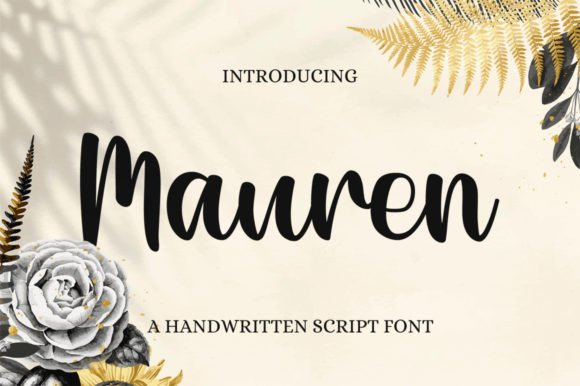
Introducing Mauren Font, the beautiful and enticing script font that will add a touch of elegance and charm to your creative projects. With its captivating curves and graceful strokes, Mauren Font is the perfect choice for designing wedding invitations, logos, branding, and heartfelt quotes that resonate with your audience.
Mauren Font is a product of Nirmala Creative, a renowned font designer known for creating exquisite and captivating fonts that bring life to your designs. With Mauren Font, you'll have access to a font that oozes sophistication and timeless beauty, making it the ideal choice for creating designs that leave a lasting impression.
**Why Choose Mauren Font?**
- Exquisite Script Style: Mauren Font features a unique script style that is both elegant and alluring. The font's enchanting curves and graceful strokes add a touch of romance and sophistication to your designs, capturing the attention of your audience and leaving them captivated.
- Perfect for Special Occasions: Mauren Font is the perfect choice for creating designs for special occasions, especially weddings. The font's timeless beauty and romantic charm make it ideal for designing wedding invitations, save-the-dates, and other wedding-related materials. Whether you're a bride looking to create a stunning invitation suite or a designer creating materials for a special event, Mauren Font will add a touch of magic to your designs.
- Versatile for Branding and Logos: Mauren Font's versatility extends beyond special occasions. It's also a fantastic choice for branding and logo design. The font's elegant and memorable style will help your brand stand out from the competition and leave a lasting impression on potential customers. Whether you're a small business owner looking to create a unique logo or a designer working on a branding project, Mauren Font will elevate your designs and captivate your audience.
- Crafting Heartfelt Quotes: With Mauren Font, you'll have the perfect font for crafting heartfelt quotes and messages that resonate with your audience. The font's natural and flowing style adds a personal touch to your words, making them more impactful and memorable. Whether you're creating social media posts, greeting cards, or simply expressing yourself through written words, Mauren Font will help you convey your message with grace and emotion.
**Step into the Realm of Elegance and Timeless Beauty**
Mauren Font is more than just a font; it's an artistic expression that will transform your creative projects into masterpieces. Its enchanting script style, versatility, and ability to create heartfelt connections make it the ideal choice for designers, business owners, and anyone looking to add a touch of elegance and charm to their designs.